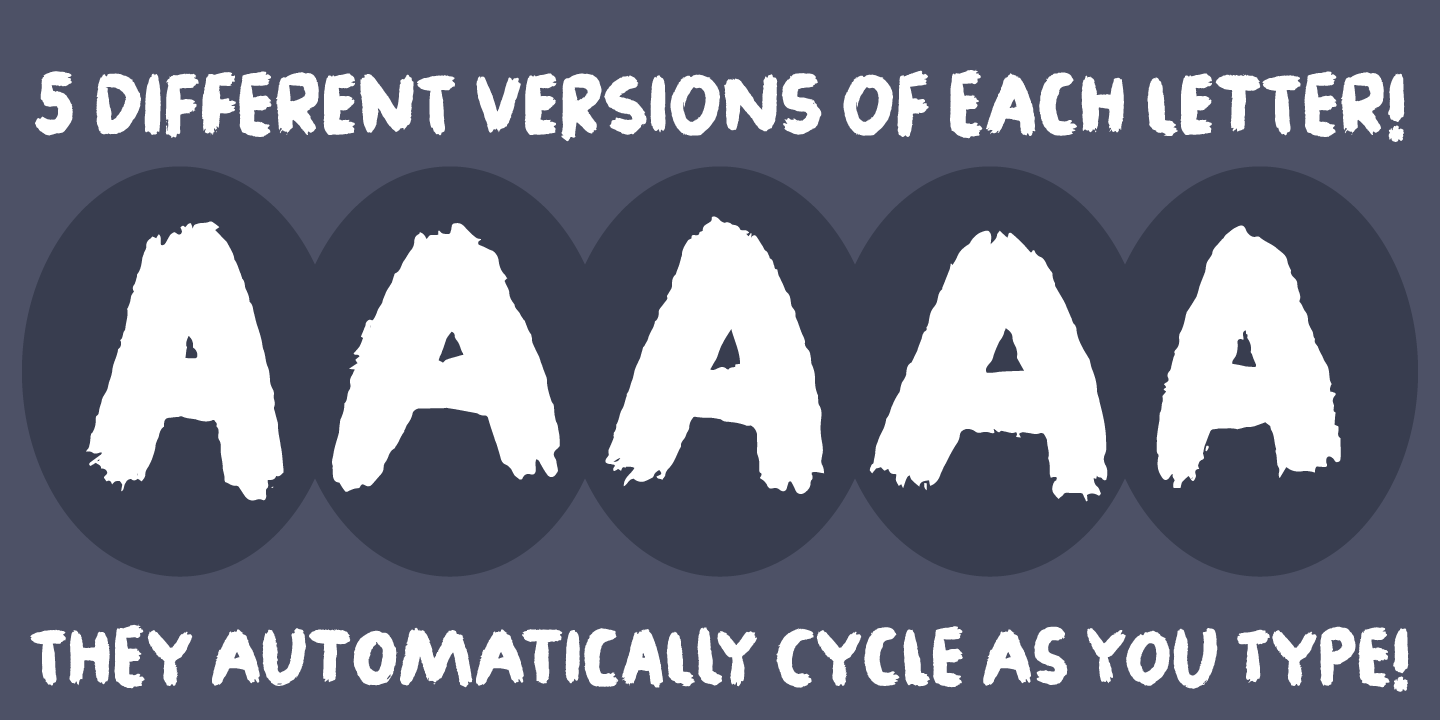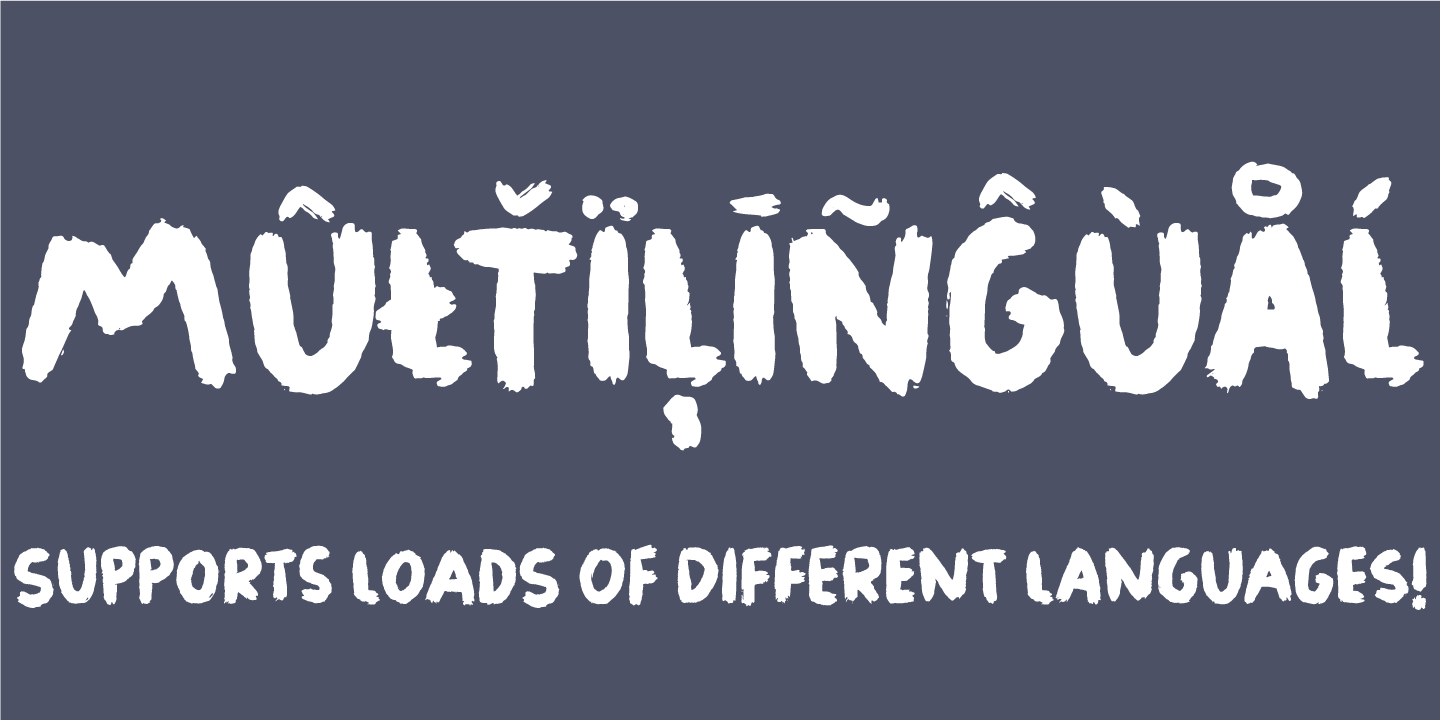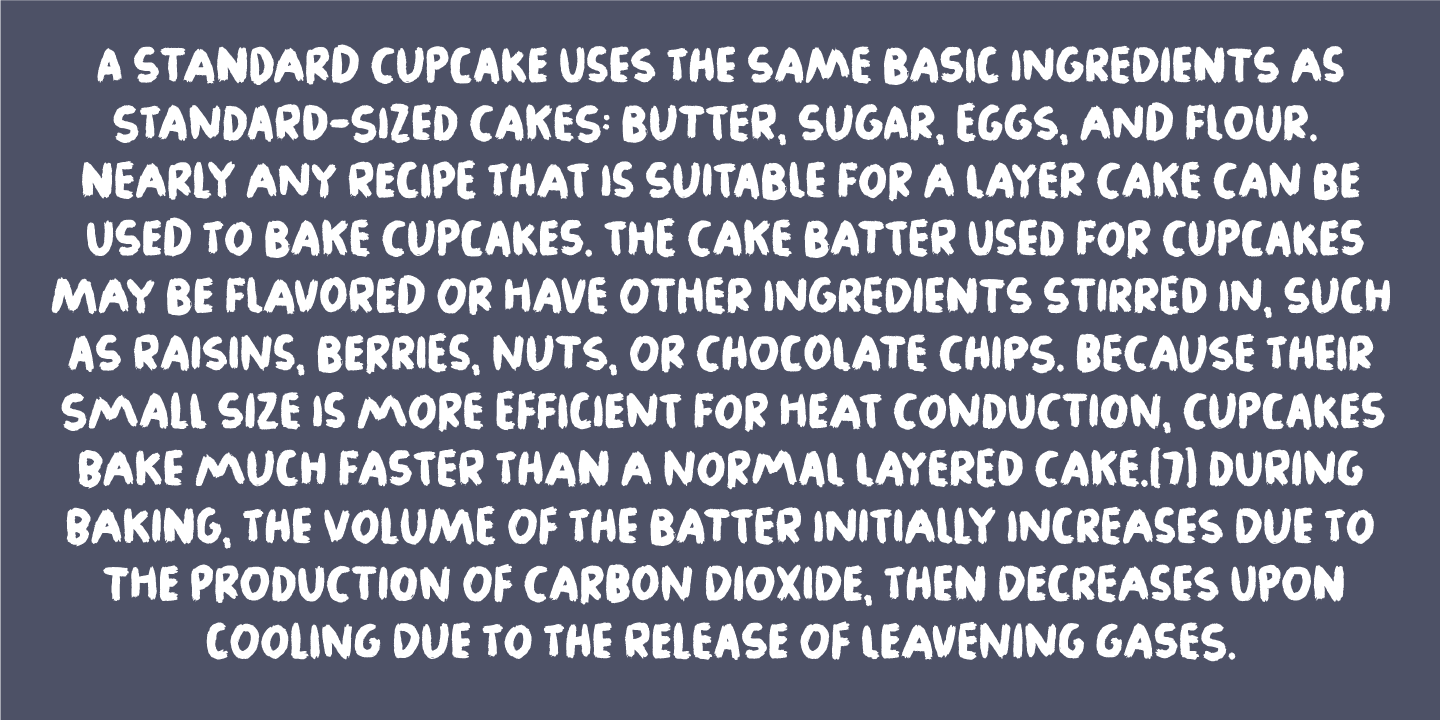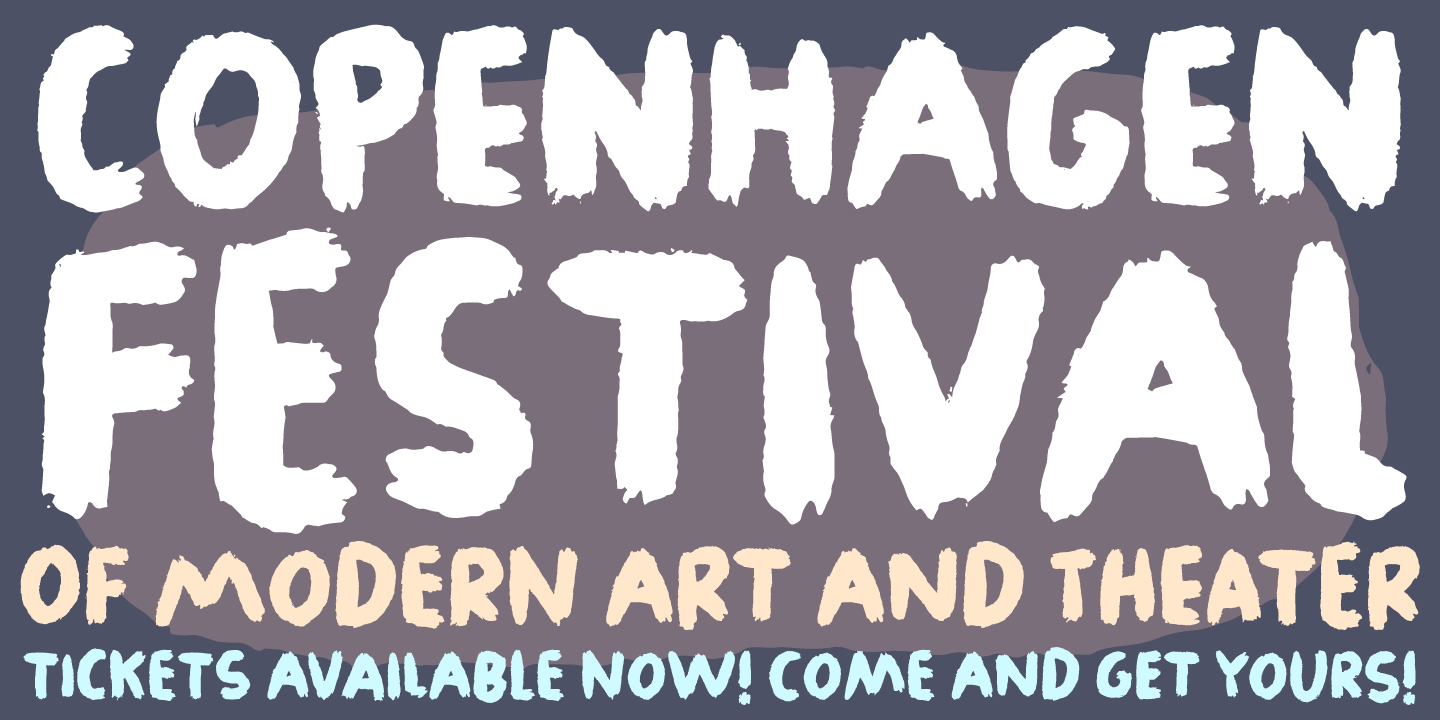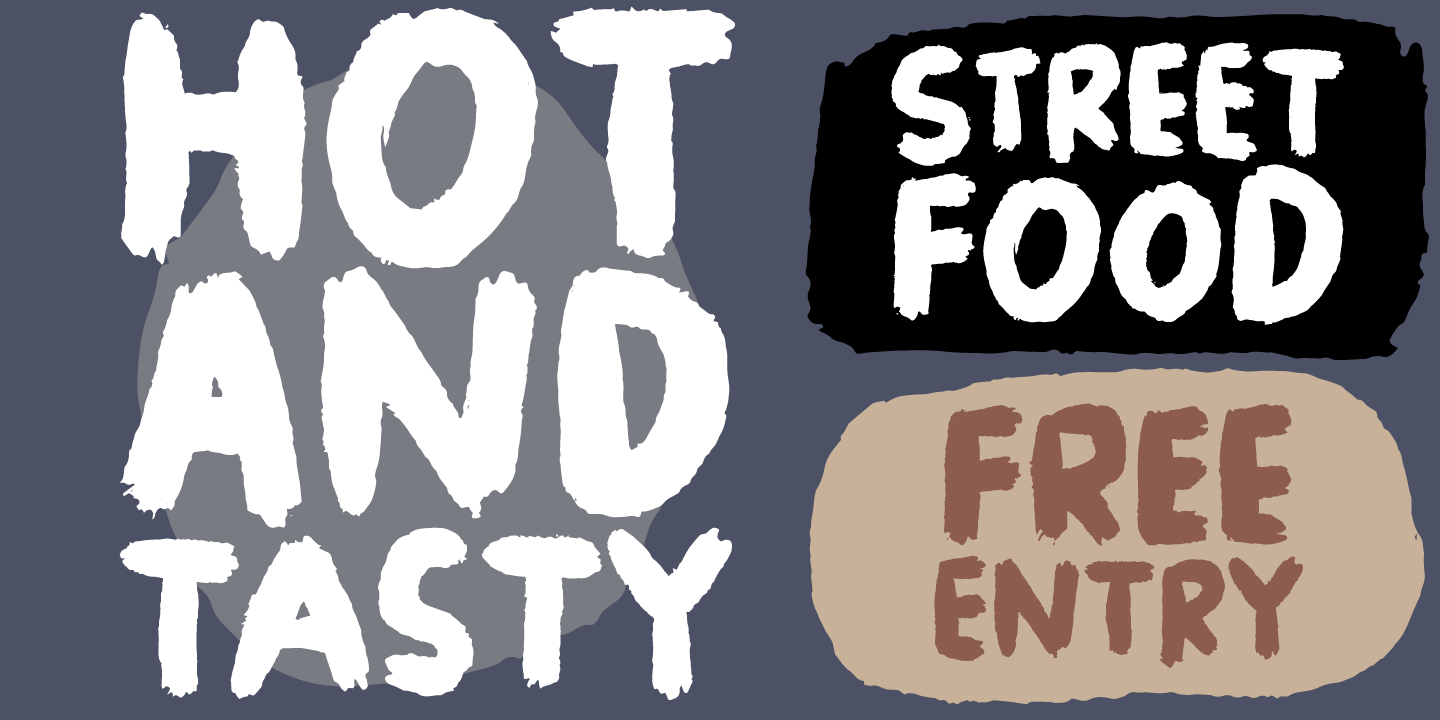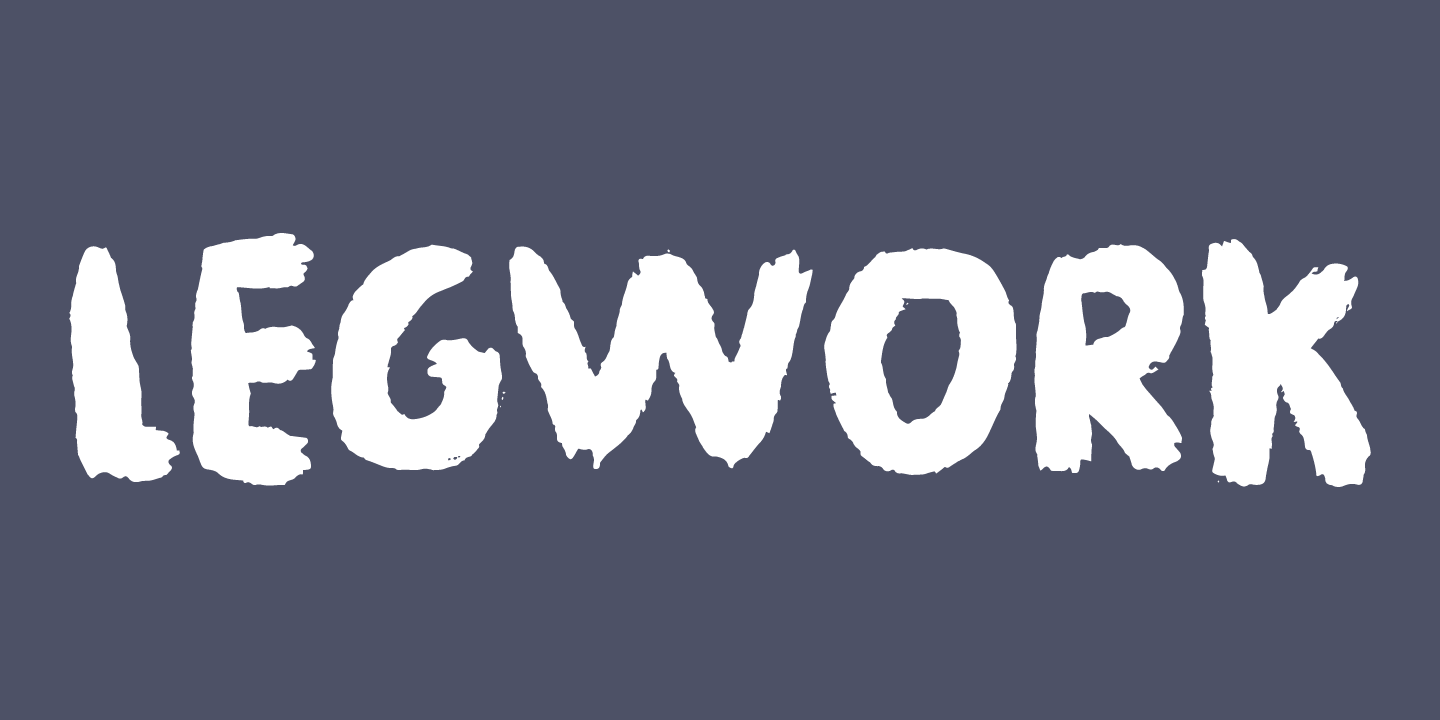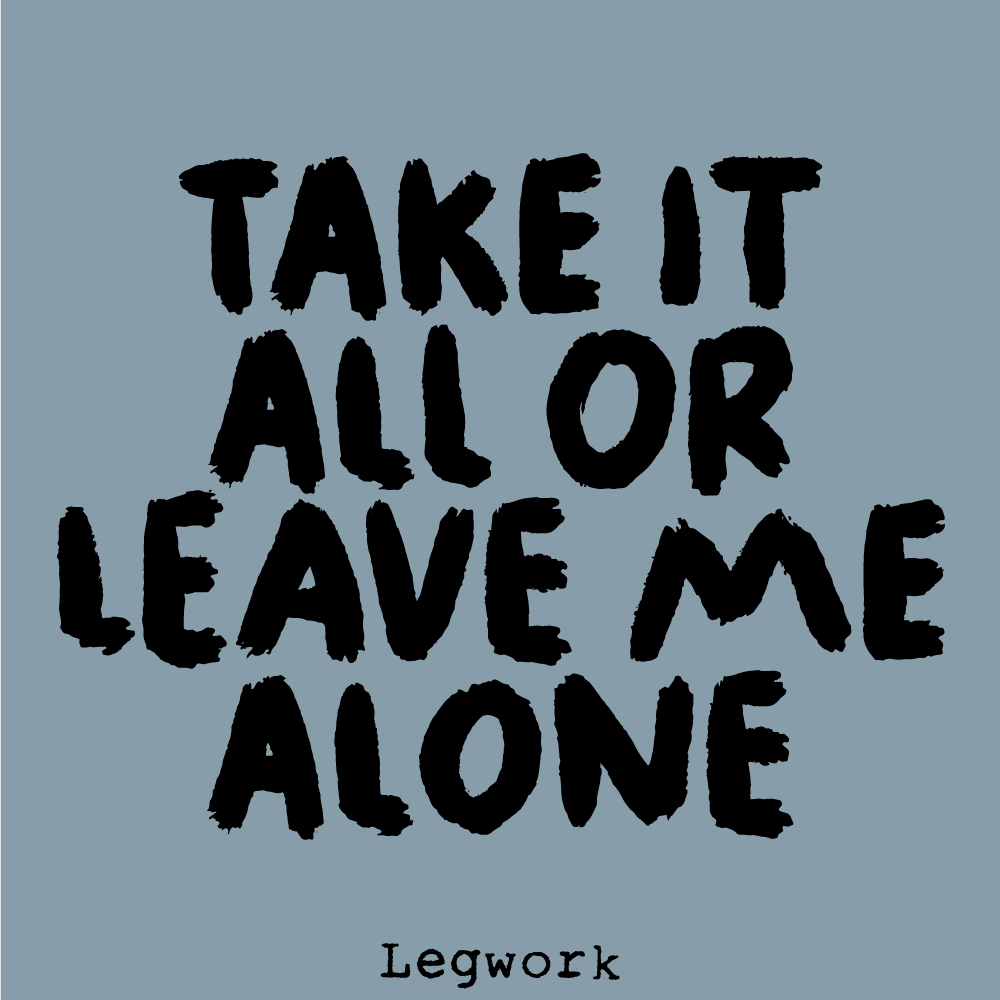
Legwork
Active physical work will take you far, and make your life sweet and profitable.
Legwork is known for a lot of good things. For example riding your bike, using the stairs instead of the escalator ... and when talking about legwork, the question is...do I mean this brushy and legible font, or legwork in general...or both?!
No matter what, the Legwork font deserves a brush oriented project!
The font has multilingual support as well as contextual alternates!